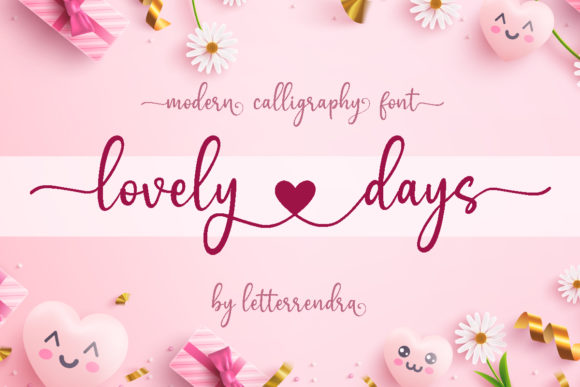
Lovely Days Font: A Romantic Handwritten Style
Looking for a font that adds charm and elegance to your designs? Lovely Days is a romantic handwritten font that brings warmth and personality to any project. With its amazing heart swashes, smooth lines, and stunning alternates, this font is perfect for creating beautiful and expressive typography.
What Makes Lovely Days Unique?
Lovely Days stands out with its varying baseline and elegant curves, making it feel like a real handwritten script. The font includes a wide range of glyphs and swashes, all accessible through PUA encoding. This means you can easily customize your text without needing advanced design skills.
The heart swashes in Lovely Days add a special touch to words like “love,” “heart,” or “believe.” These features make the font ideal for creating romantic themes, wedding invitations, or heartfelt messages.
Key Features of Lovely Days
- Handwritten Style: Mimics natural handwriting for a personal and authentic look.
- Heart Swashes: Adds emotional flair to your text with beautiful heart shapes.
- PUA Encoding: Easy access to all glyphs and swashes for customization.
- Varying Baseline: Creates a dynamic and organic appearance.
- Smooth Lines: Ensures readability while maintaining an artistic feel.
Why Choose Lovely Days?
If you're looking for a font that combines beauty with functionality, Lovely Days is a great choice. It’s versatile enough to be used in various contexts, from personal projects to professional designs. Whether you're a beginner or an experienced designer, this font offers something for everyone.
The romantic style of Lovely Days makes it especially popular among those who want to convey love, affection, or creativity in their work. Its unique features allow you to create visually appealing content that stands out from the crowd.
Where Can You Use Lovely Days?
Lovely Days is suitable for a wide range of applications. Here are some common use cases:
- Wedding Invitations: Add a personal touch with heart swashes and elegant lettering.
- Valentine’s Day Cards: Create heartfelt messages that express love and affection.
- Blog Posts: Enhance headings or quotes with a romantic and engaging style.
- Social Media Graphics: Stand out with eye-catching text for posts, stories, or banners.
- Business Branding: Use it for logos, slogans, or promotional materials that need a creative edge.
No matter what you're designing, Lovely Days can help you achieve a unique and memorable look.
Getting Started with Lovely Days
If you're new to using fonts like Lovely Days, here are a few tips to get started:
Next, experiment with how the font looks in different sizes and colors. Since Lovely Days has a varying baseline, it may appear slightly uneven when used in large blocks of text. For best results, use it in short phrases or as a headline.
You can also pair Lovely Days with other fonts to create contrast and balance. Try combining it with a clean sans-serif font for body text to keep your design readable yet stylish.
Considerations Before Using Lovely Days
While Lovely Days is a beautiful and versatile font, there are a few things to consider before using it in your projects:
- Readability: Due to its handwritten nature, it may not be the best choice for long paragraphs or small text sizes.
- Design Tools: Ensure your software supports PUA encoding so you can access all the special characters and swashes.
- Consistency: Use the font consistently throughout your design to maintain a cohesive look.
By keeping these considerations in mind, you can make the most of Lovely Days and avoid potential issues down the line.
Conclusion
Lovely Days is more than just a font—it's a way to bring emotion and artistry into your designs. With its romantic style, heart swashes, and easy customization, it’s perfect for anyone looking to create something special.
Whether you're designing a wedding invitation, a social media post, or a blog header, Lovely Days can help you stand out and make a lasting impression. So why not give it a try and see how it transforms your next project?